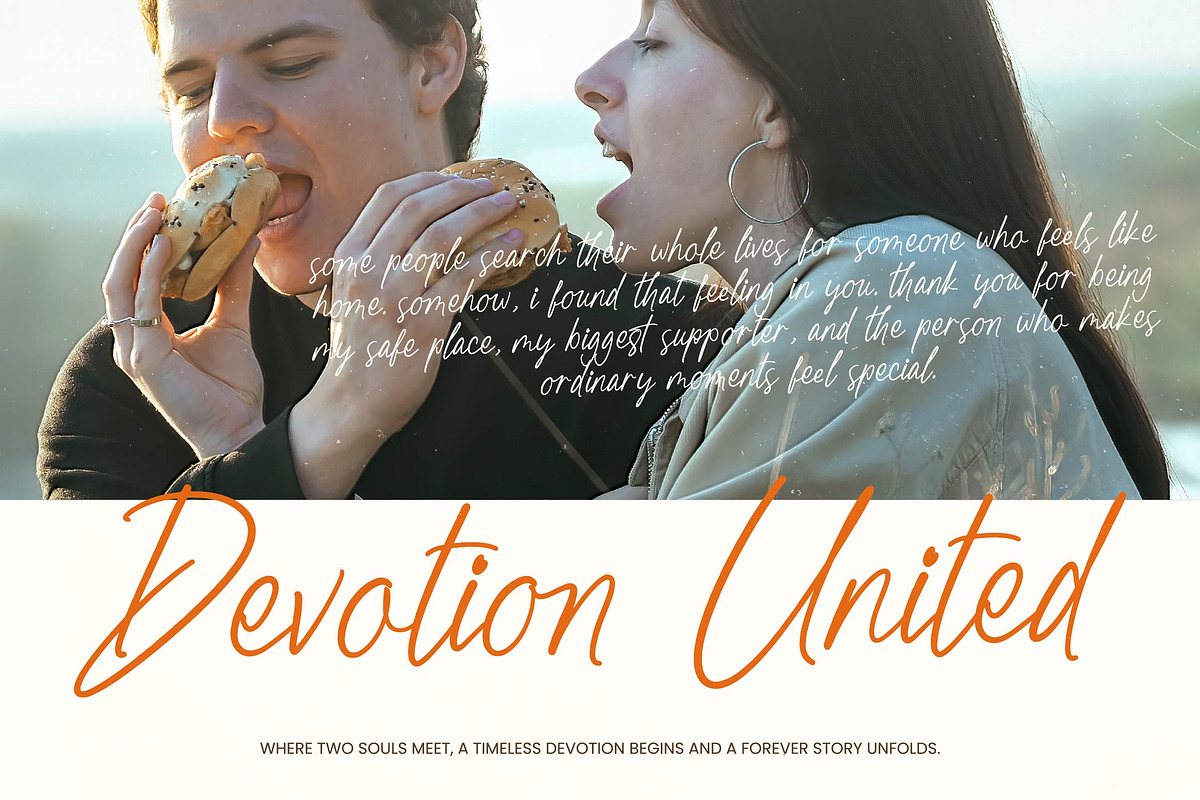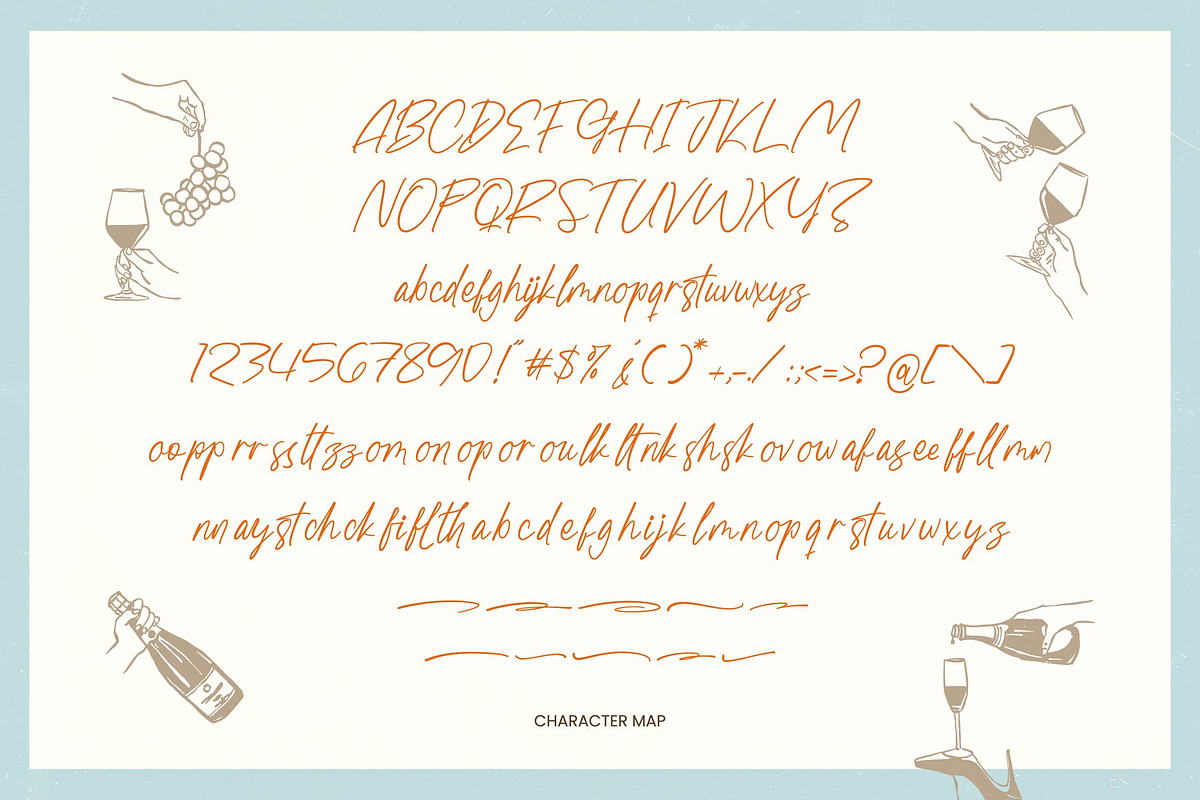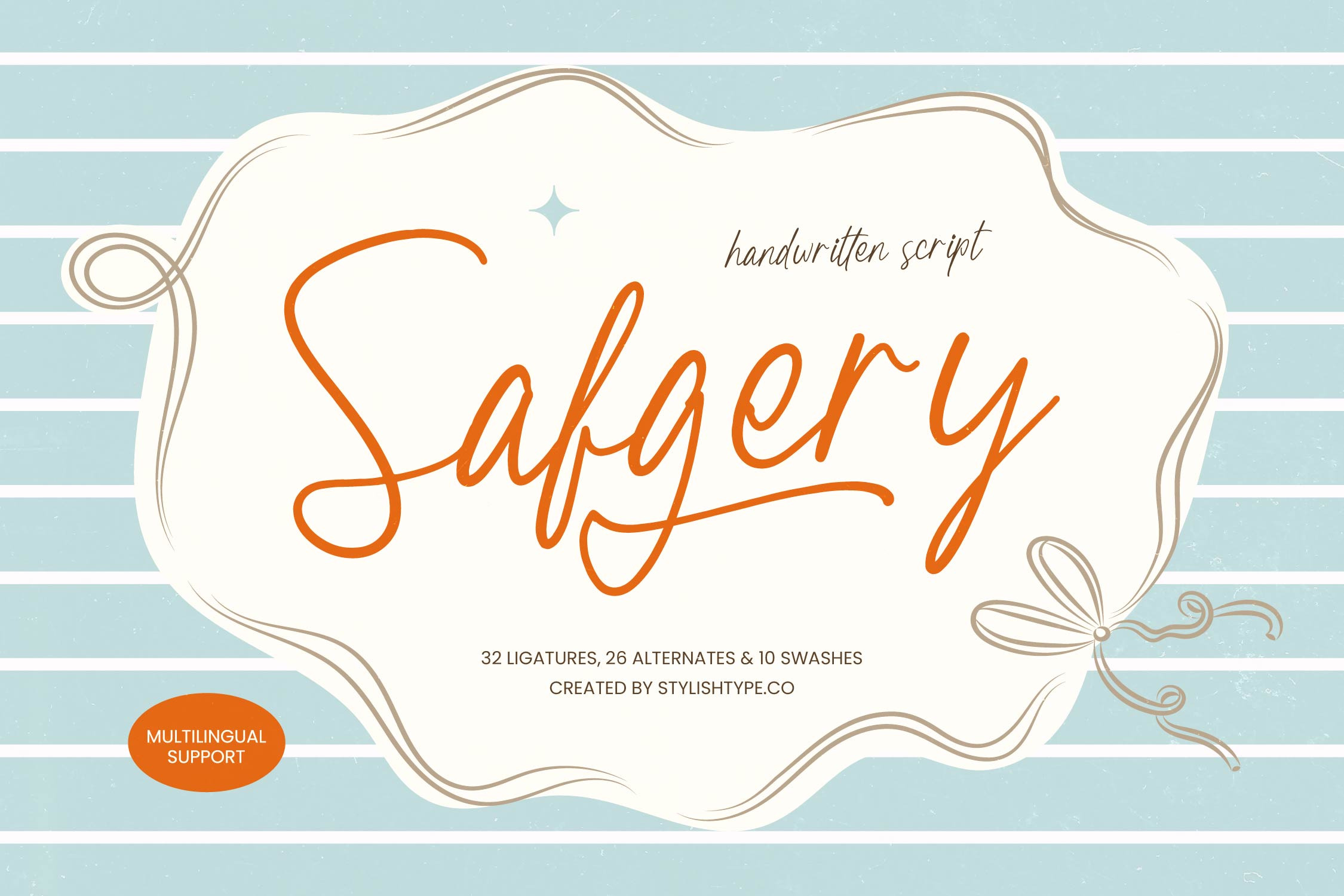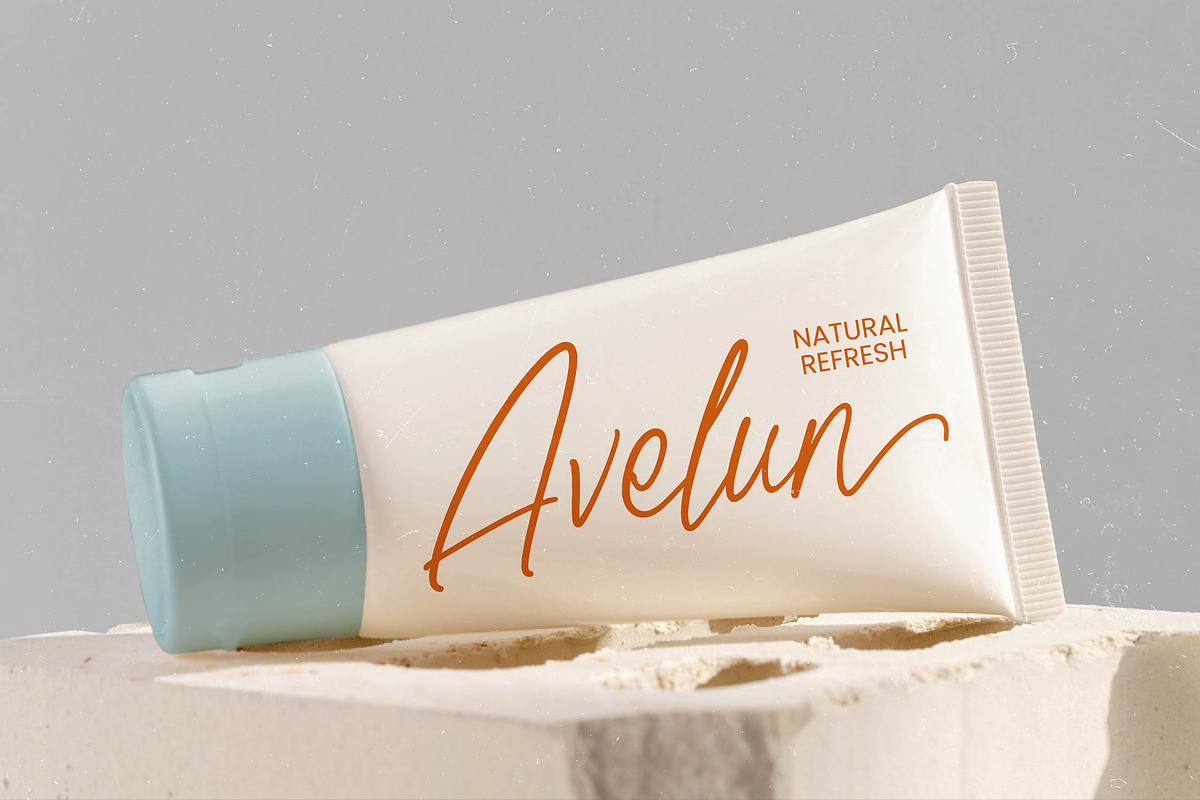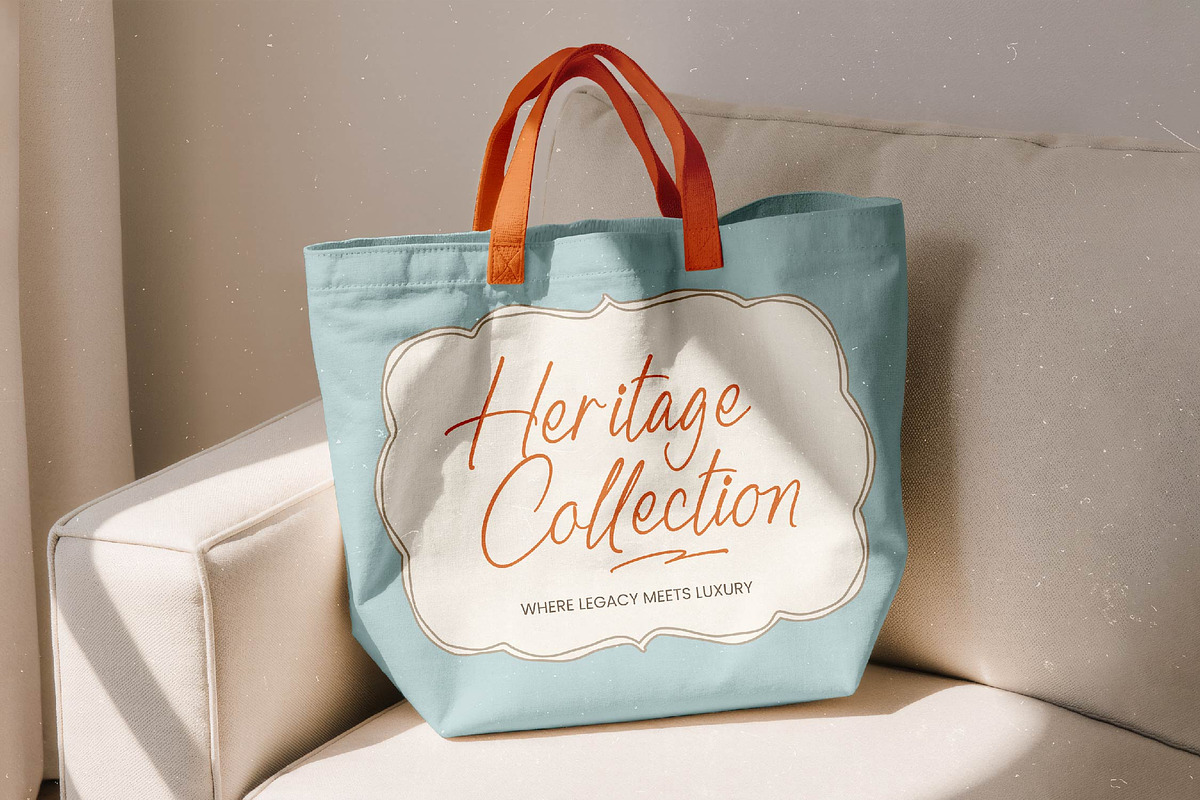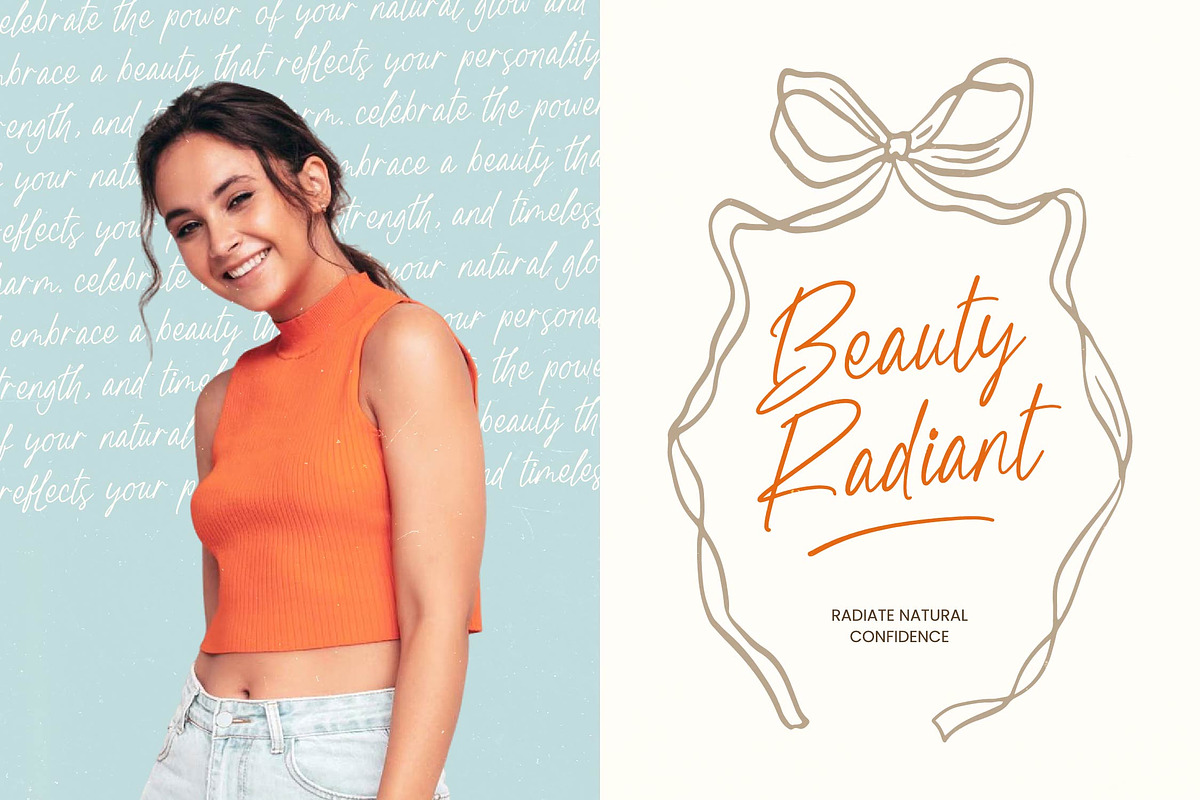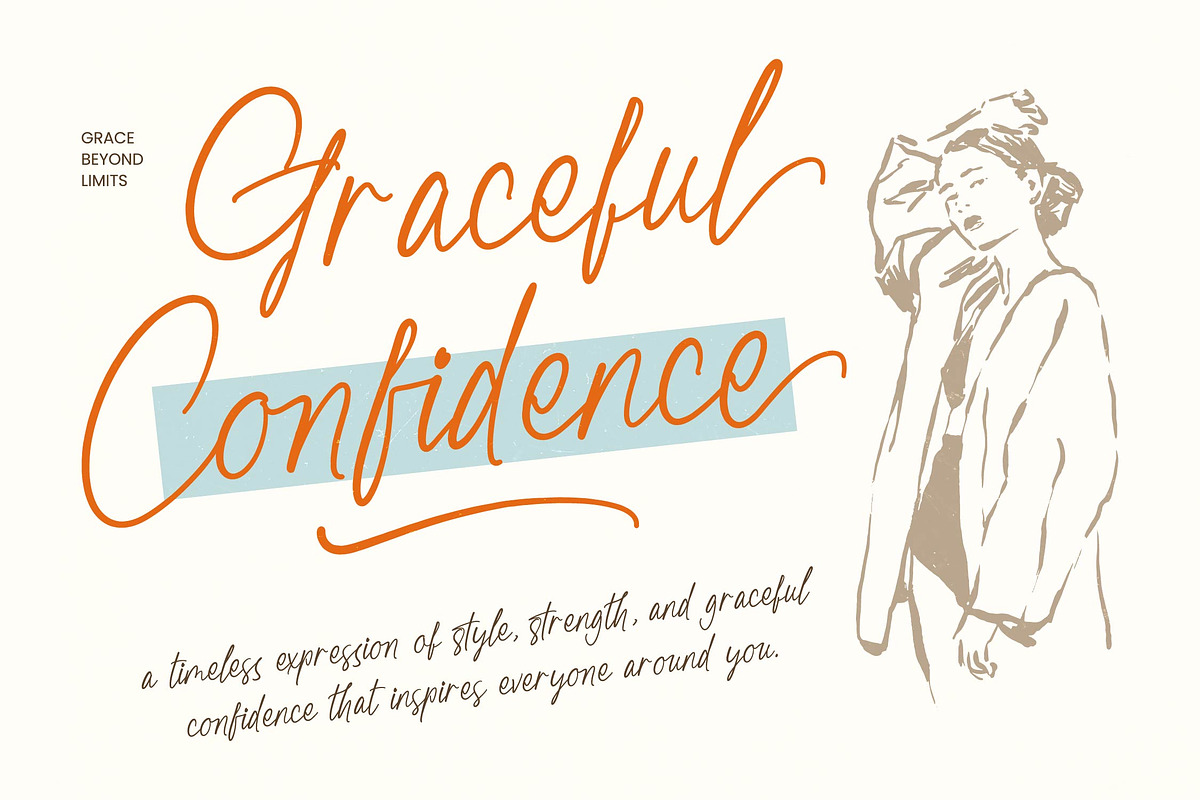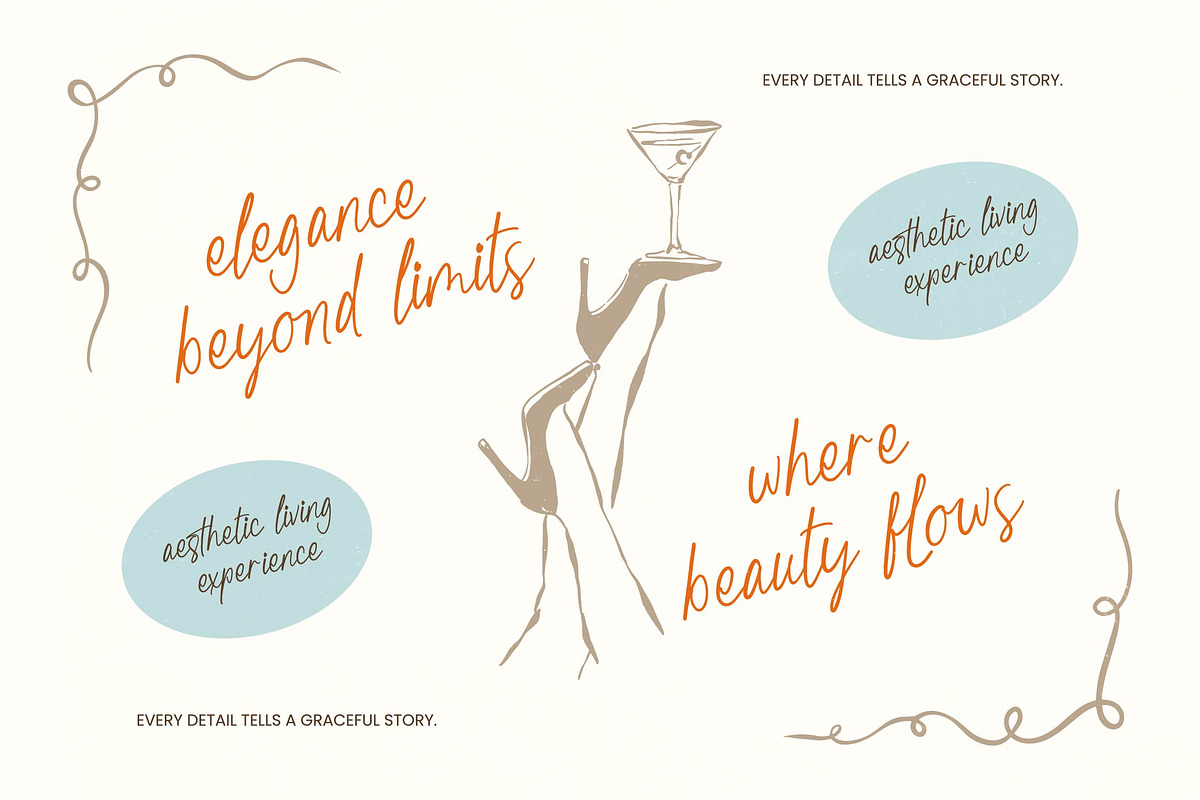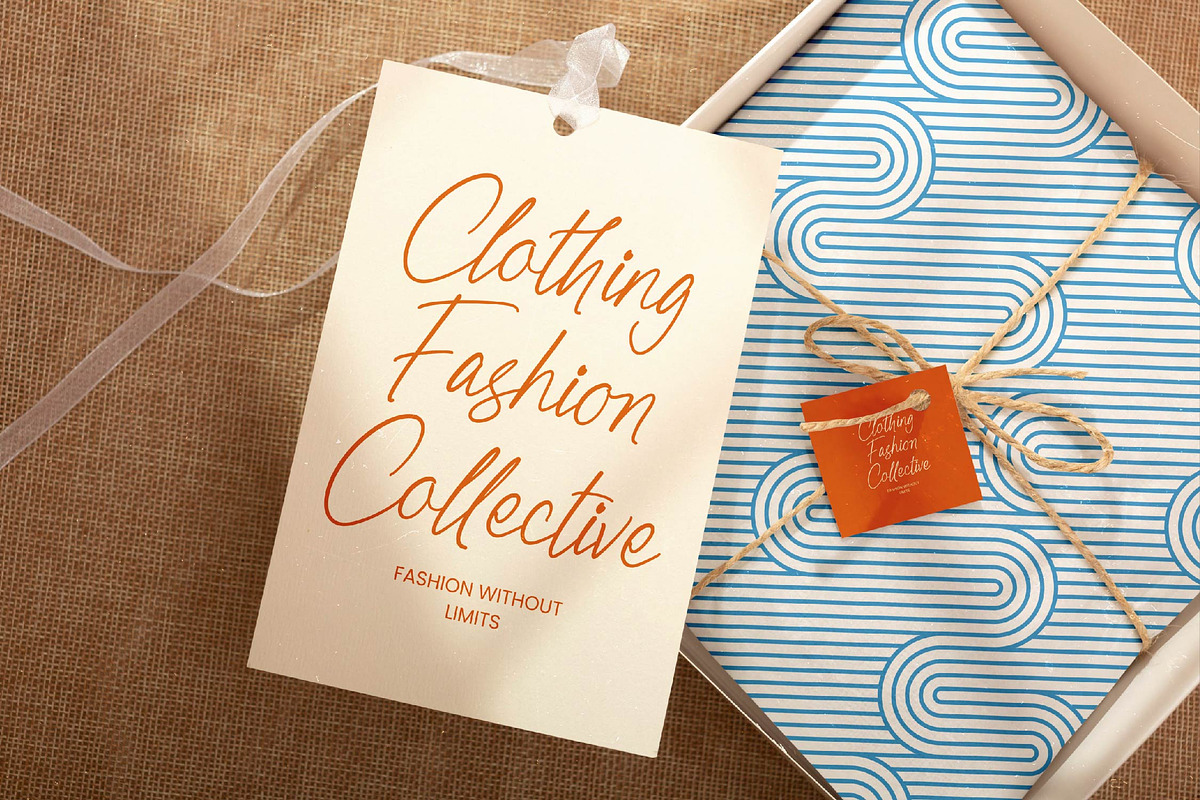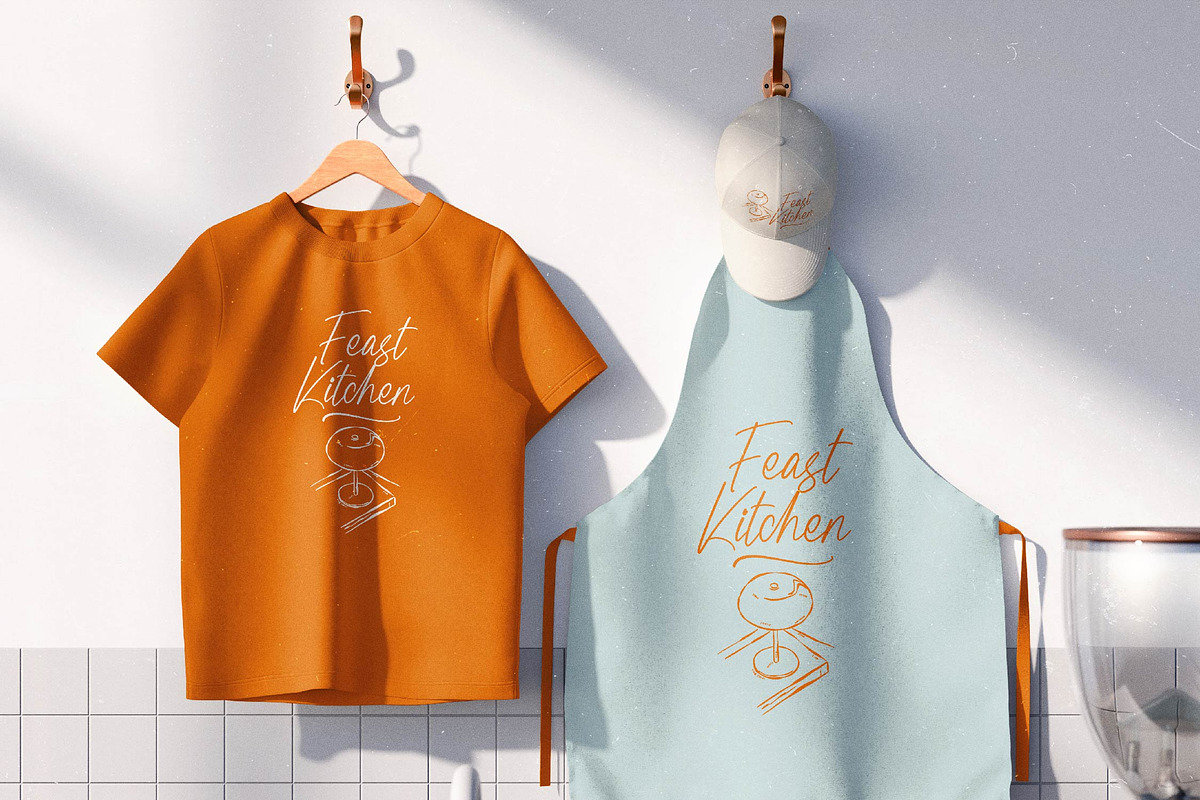
Safgery Handwritten Script Font
Safgery - Handwritten Script Font , Experience the epitome of effortless elegance with Safgery - Handwritten Script Font, a typeface designed to infuse your creative projects with a natural, handcrafted aesthetic. This refined script balances fluid penmanship with a modern sensibility, capturing an authentic human touch that resonates with audiences seeking sophistication and originality. Its graceful strokes and rhythmic flow make it an essential tool for designers looking to elevate their visual storytelling.
Unlock limitless creative potential across a variety of premium niche markets. Safgery - Handwritten Script Font is the perfect choice for luxury branding, wedding invitation suites, and high-end editorial design. Beyond traditional uses, it excels in cosmetic packaging, lifestyle photography overlays, and boutique signage where a personalized feel is paramount. Whether you are crafting a logo design or a social media campaign, this font ensures your message is delivered with unparalleled grace.
Global reach is a cornerstone of modern design, and this typeface delivers on all fronts. With its extensive multilingual support, Safgery - Handwritten Script Font adapts seamlessly across global markets, making it incredibly versatile for international projects. This ensures that your brand identity remains consistent and visually impactful regardless of geographic boundaries, providing a comprehensive solution for global communication and diverse linguistic needs.
Maximize your design flexibility with an impressive array of OpenType features. Safgery - Handwritten Script Font includes 32 custom ligatures, 26 character alternates, and 10 decorative swashes, allowing for bespoke typography that feels truly custom-made. This versatile toolkit empowers creators to produce dynamic layouts and distinctive wordmarks. Invest in a timeless asset that combines artistic flair with commercial functionality to make every project a visual masterpiece.